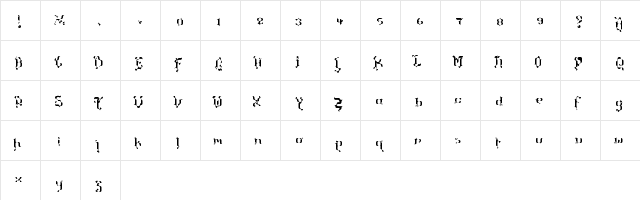
The Terriffic Kerganogggg... Regular
Design Context for The Terriffic Kerganogggg... Typeface
The Terriffic Kerganogggg... is a composed and adaptable typeface that performs quietly and consistently across a wide range of design contexts.